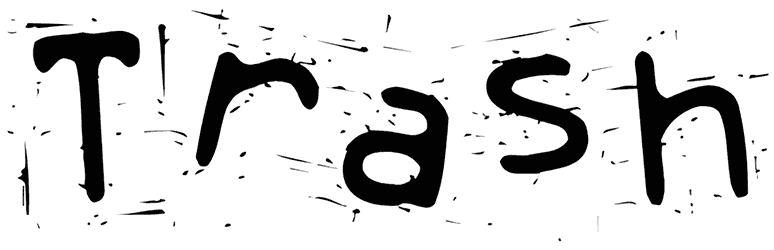
Trash Font
For many content designs of movie posters and video game banners that need to evoke grunge, fancy, and distress, what can be fitted as a destroy font? Yes, here, Trash with skewed and oblique letterforms draw nearer to share the sense of friendliness, excitement, and smudgy amazingness. So, before designing, check out our library that hosts several artistic destroy fonts!